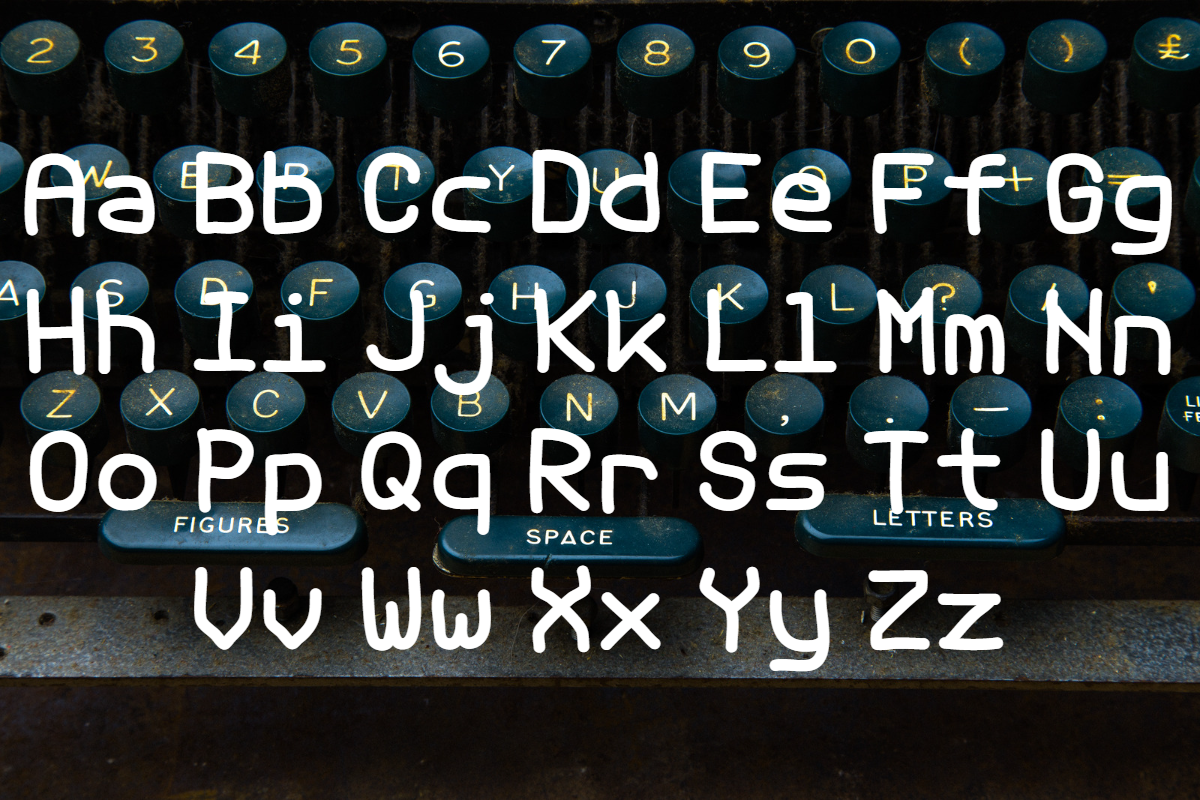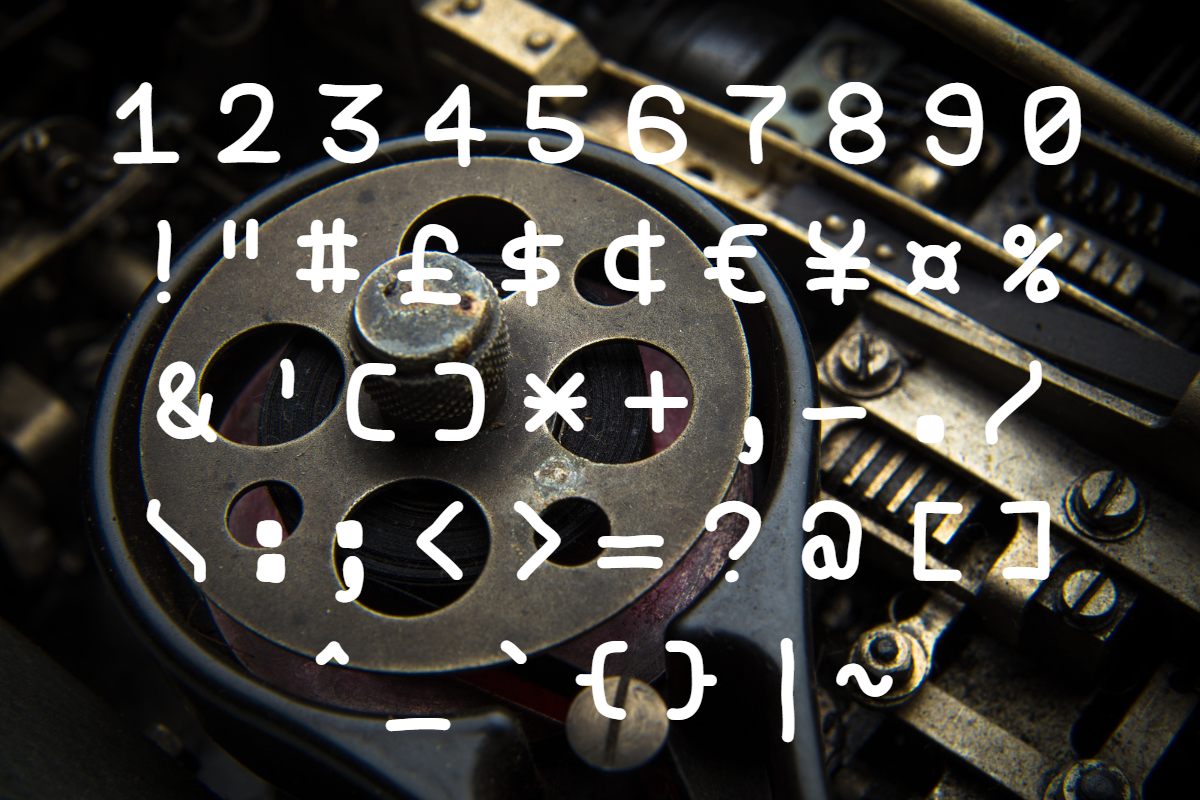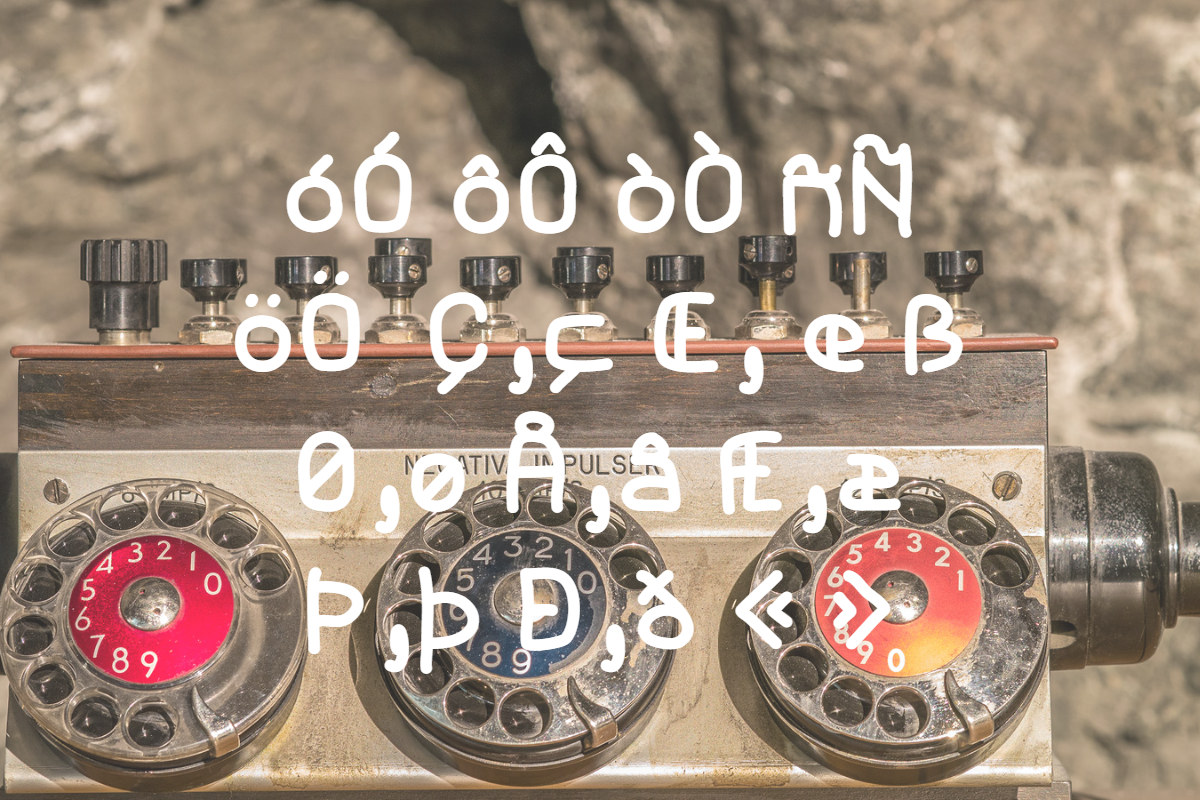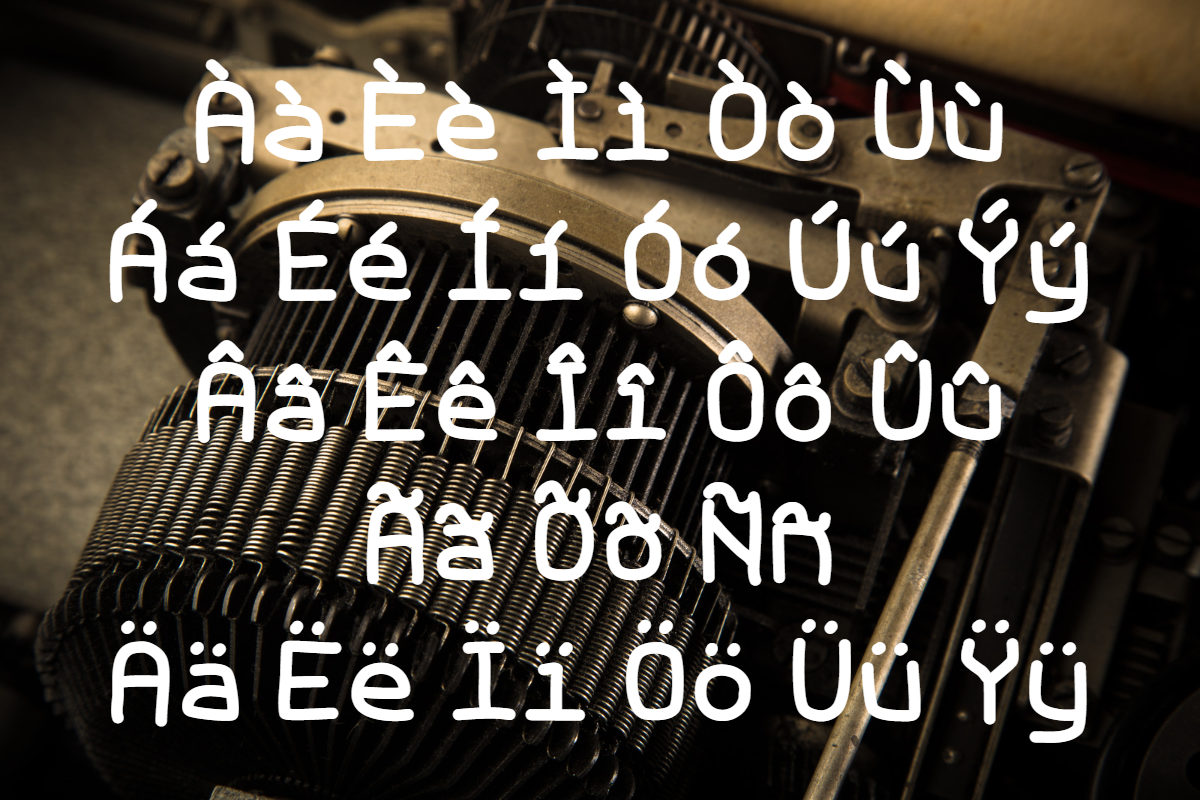
Teletype Curve
A modern twist on the vintage teletype text. A curve! This typeface will add that vintage feel to your next project. Comes with a full alphabet, accent and Latin extension glyphs. 458 glyphs in total.